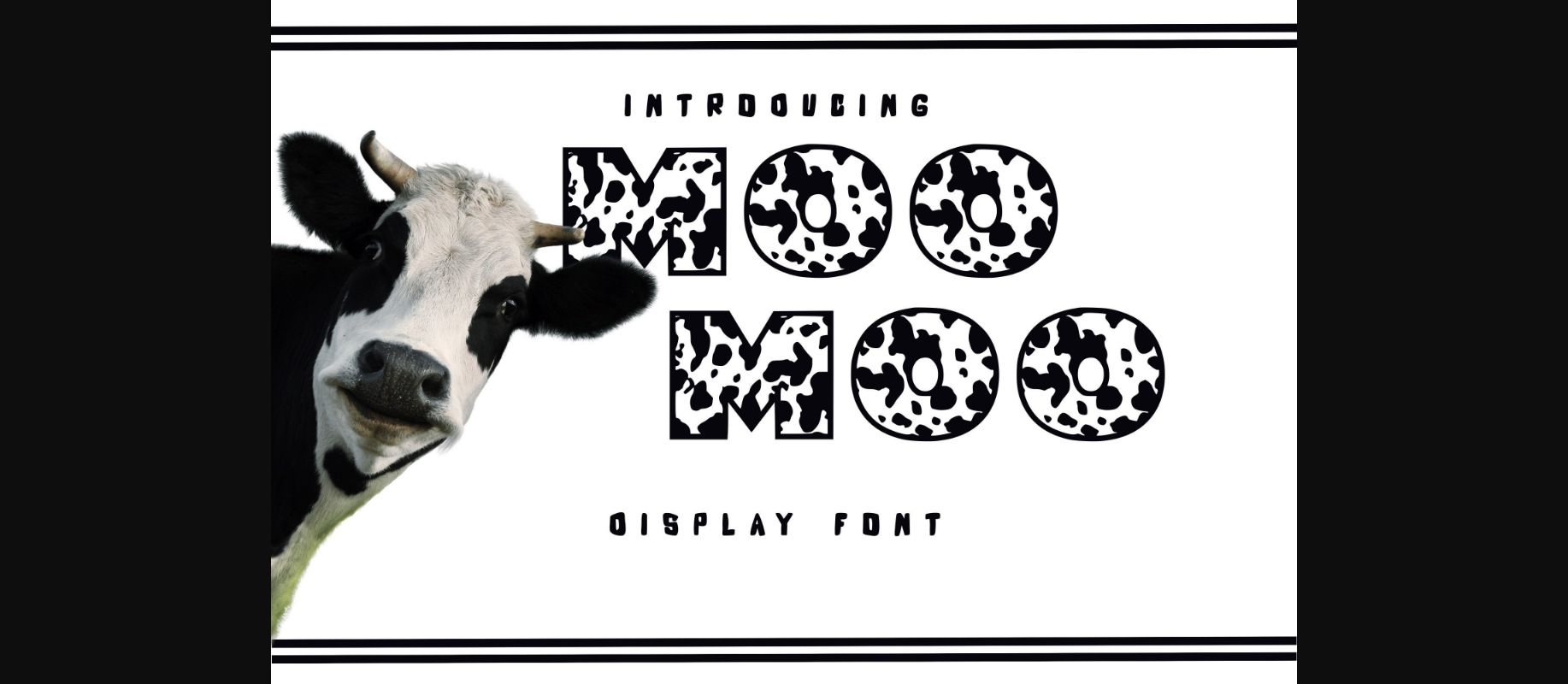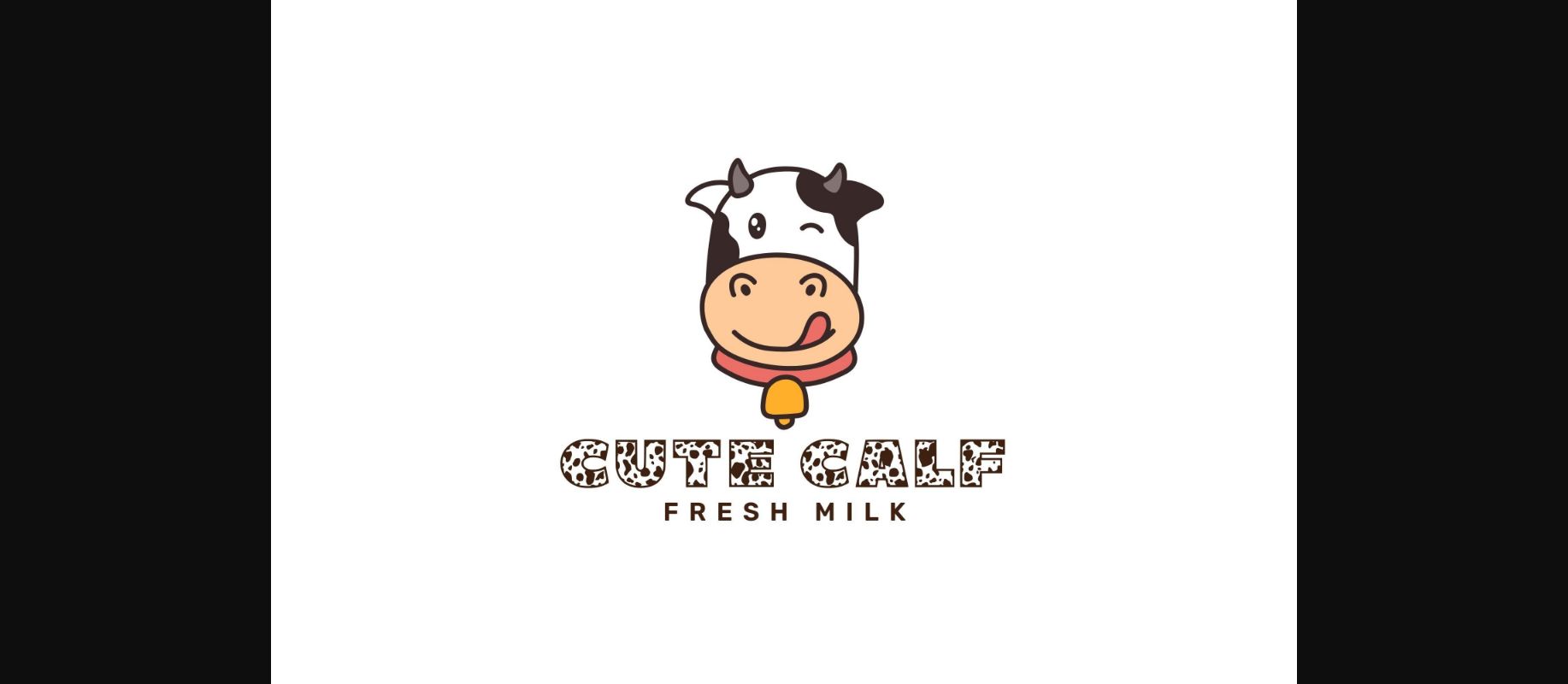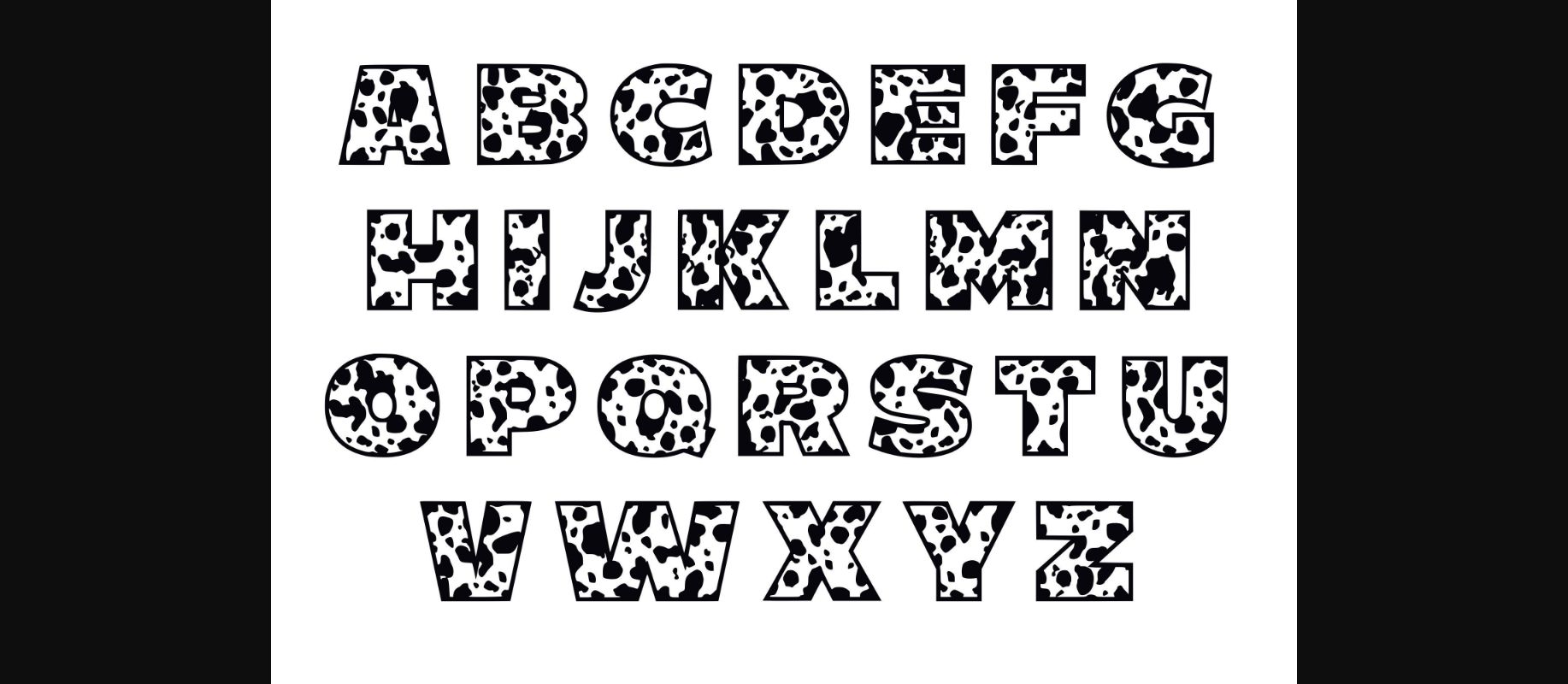
Moo Moo Font
About Moo Moo Font
Moo Moo is an adorable decorative display font with a cow pattern. It is perfect for classroom decorations, school projects or anything that needs a fun and playful touch.